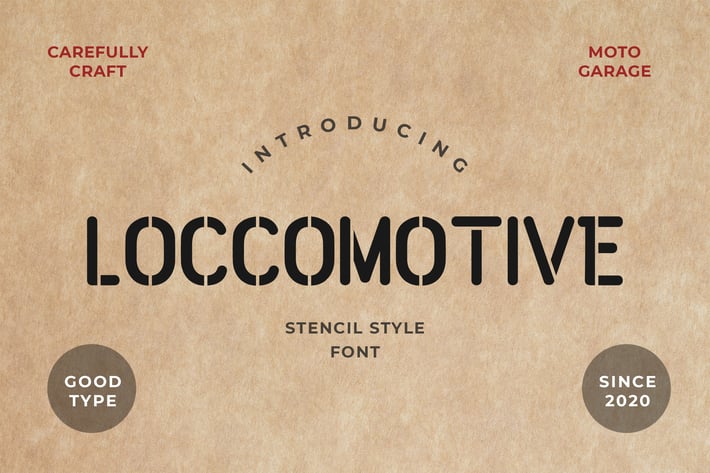
Loccomotive Stencil Font
Loccomotive Stencil Font perfect for people looking for vintage aesthetic or hand-drawn logo. Suitable for any graphic designs such as branding materials, t-shirt, print, business cards, logo, poster, t-shirt, photography, quotes .etc.